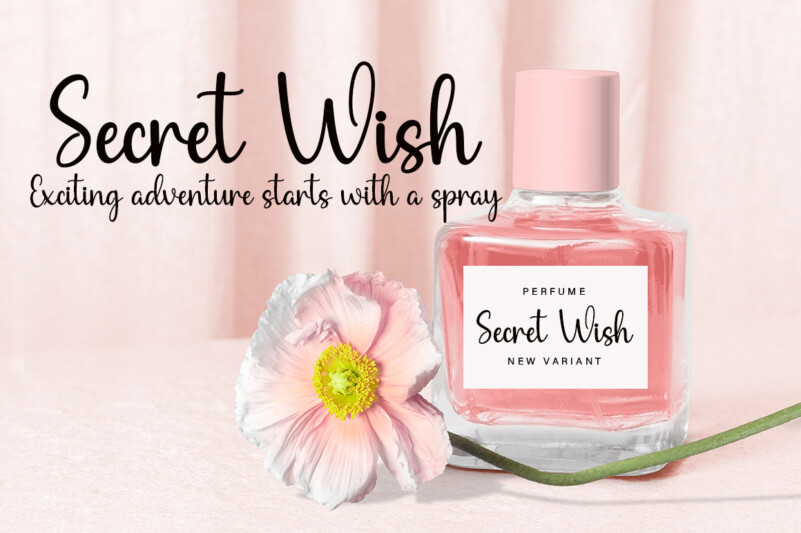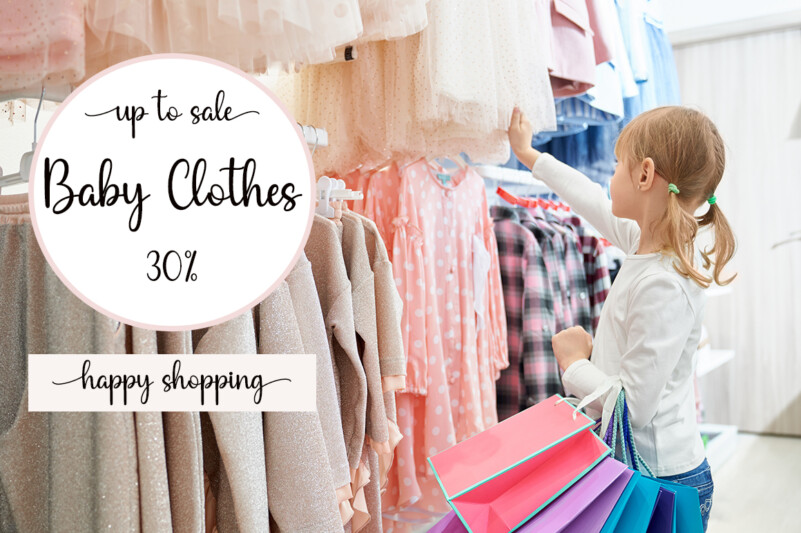
Scania Font
Scania FontSecania is an enchanting handwritten font. This versatile typeface has a wide spectrum of applications, ranging from greeting cards to headlines. This font is PUA encoded, which means you can access all of the glyphs and swashes with ease!